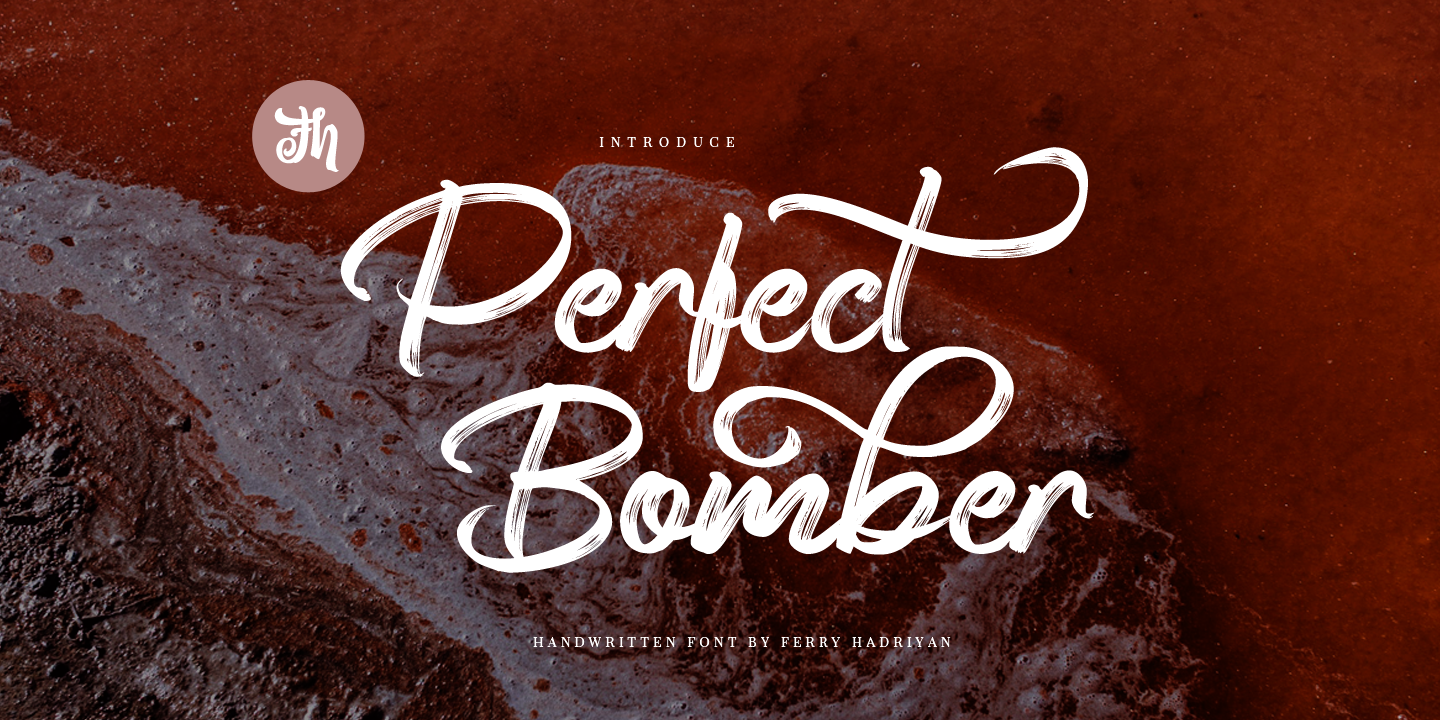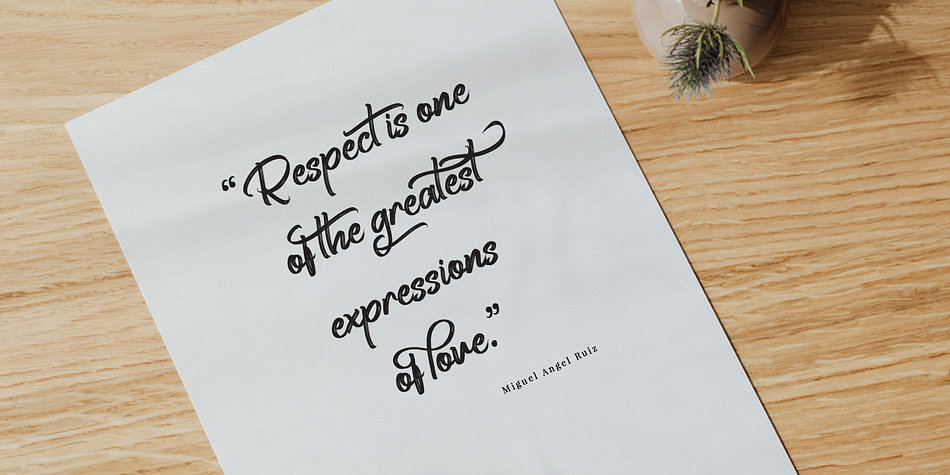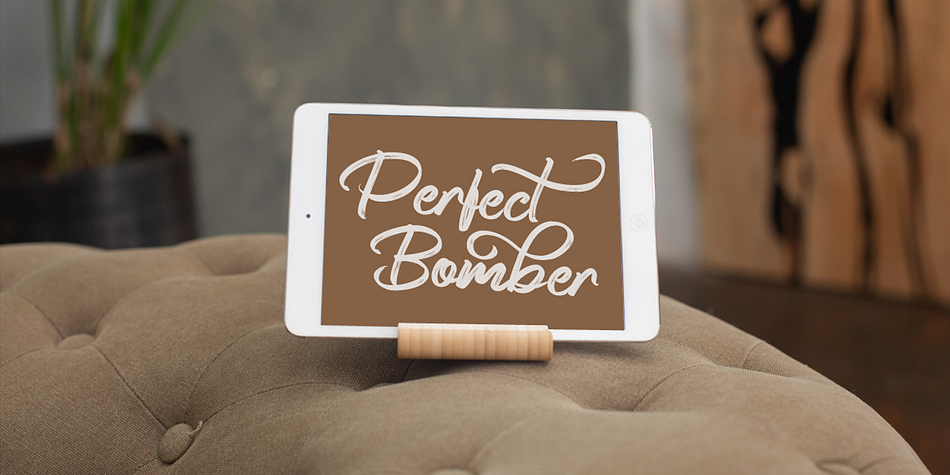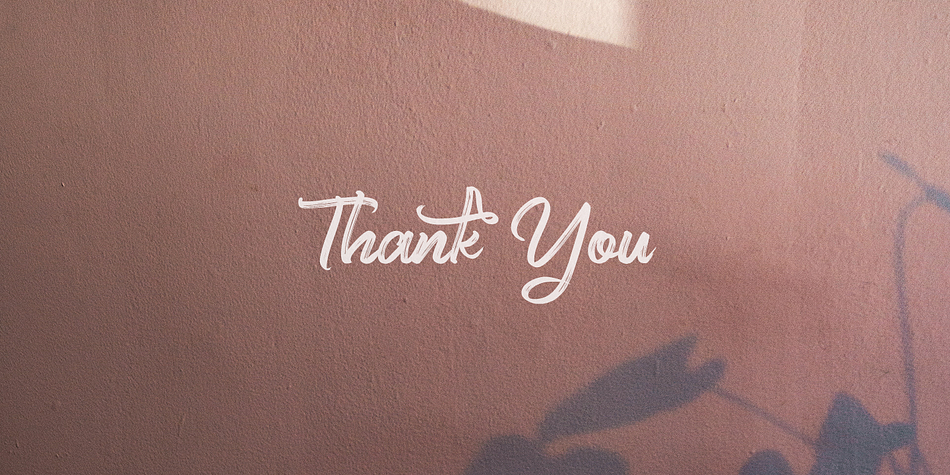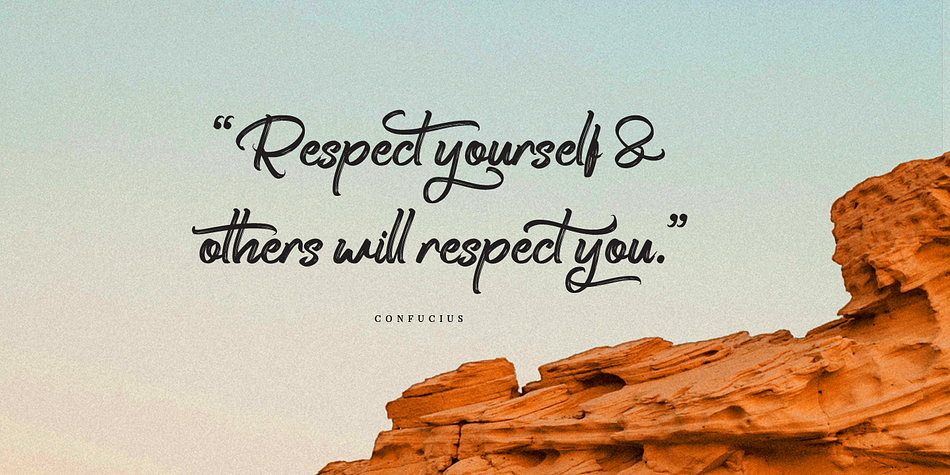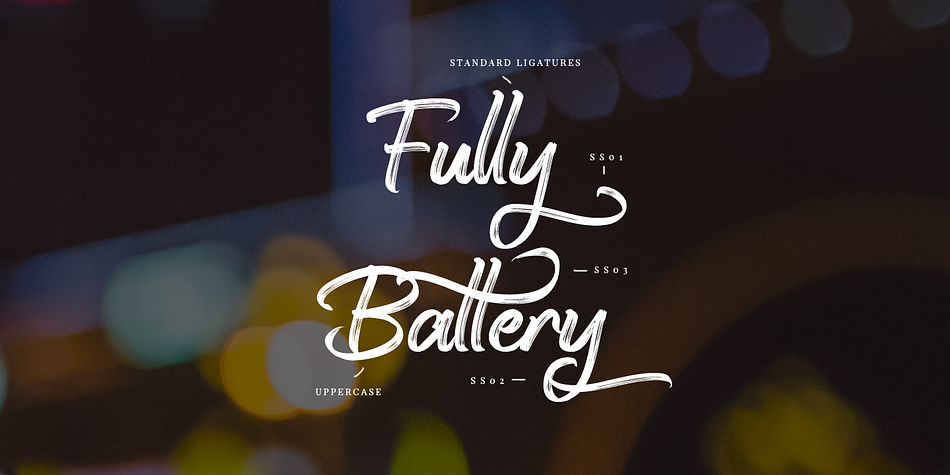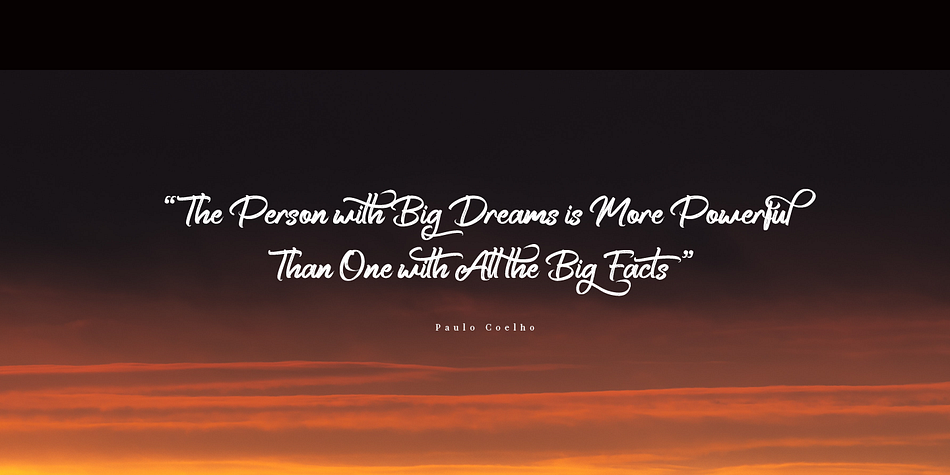
Perfect Bomber
Designed by Ferry Hadriyan, Perfect Bomber is a brush script font family published by feydesign.
Perfect Bomber is script font with handlettering vintage brush style, with OpenType feature include of the font. Suitable for design, element design, event, logo, and awesome work, etc…
- All Standard Character, Symbol, Multilanguage, Ligature, Stylistic Set, and Swashes.
- Unique style fonts